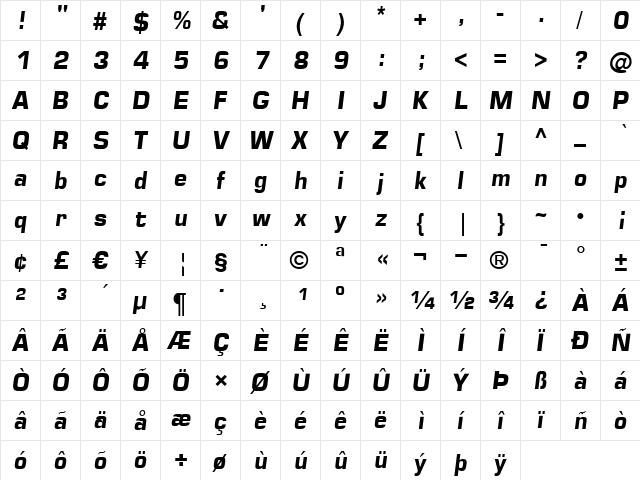
font400 BoldItalic
Design Context for font400 Typeface
font400 offers clean, dependable letterforms without strong stylistic allegiance, making it a practical choice for designers who need flexibility. The slanted form adds forward momentum and visual energy. Its bold stroke weight gives it real presence on the page.